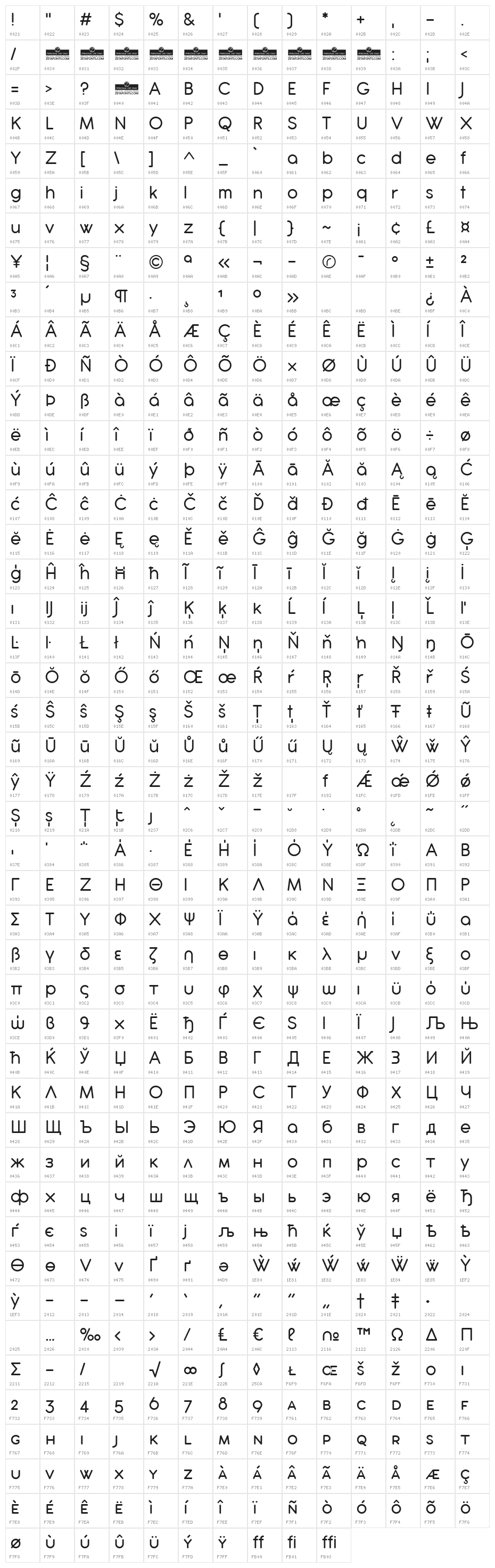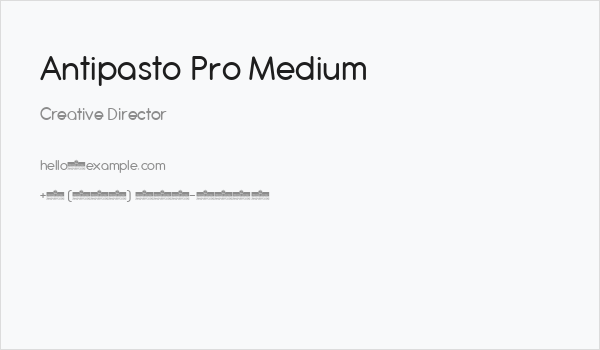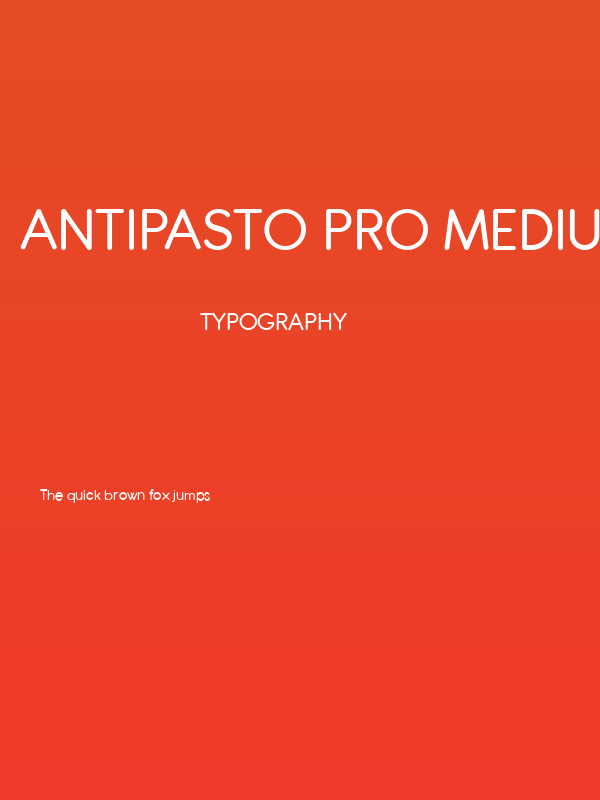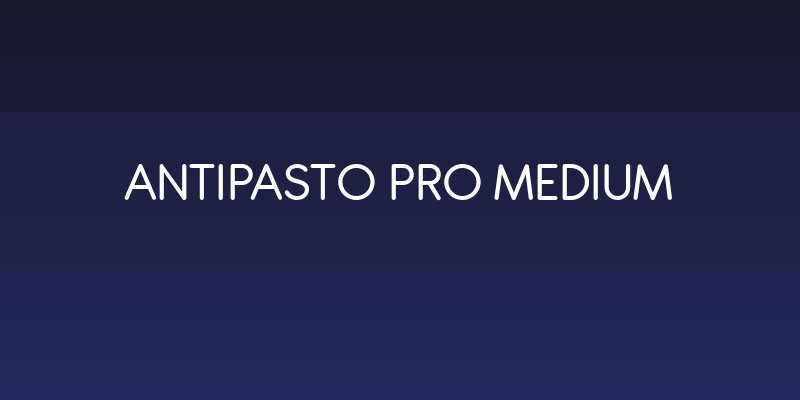
Antipasto Pro Medium Font
Antipasto Pro Medium Description
This font features a clean, modern aesthetic with rounded edges and a uniform stroke width. The characters are well-balanced, offering a harmonious appearance that is both approachable and professional. The uppercase letters are bold and assertive, while the lowercase letters maintain a friendly and inviting tone. The numerals and special characters are designed to complement the alphabet, ensuring consistency across all text elements. Its simplicity and clarity make it versatile for various design applications.